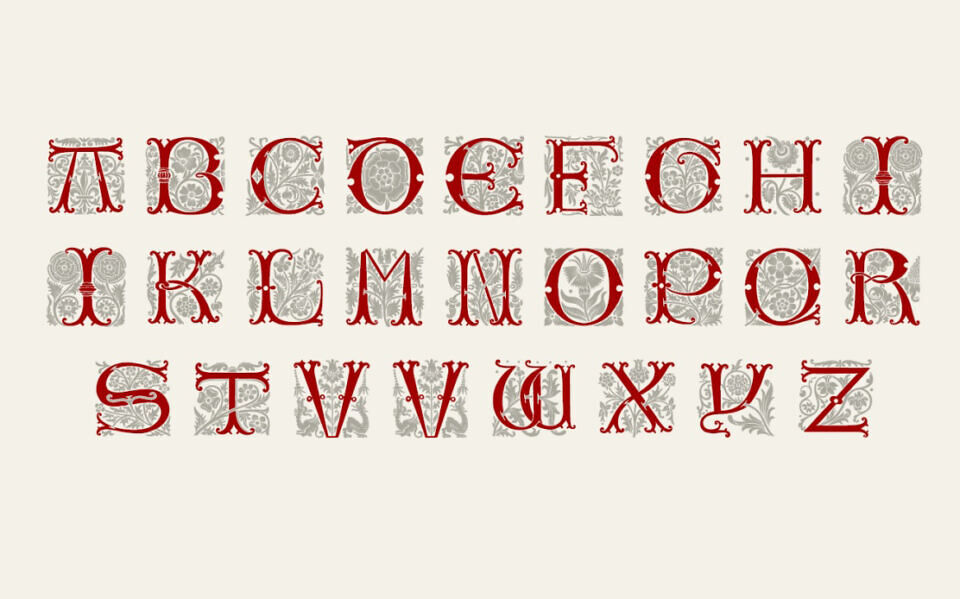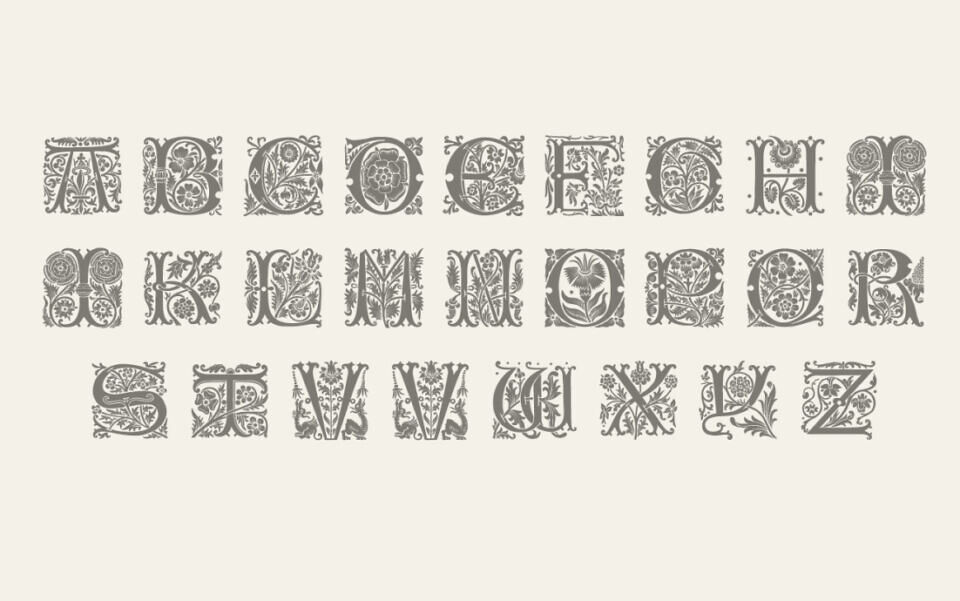
Capo Rose is a decorative OFL font inspired by 15th-century Venetian incunabula initials, as featured in Paleografia Artistica di Montecassino.
Designed by Michele Casanova, it offers uppercase letters (A–V, X) with intricate, ornate details, ideal for headings or decorative text. Capo Rose pairs elegantly with fonts like Vermiglione, evoking a historical, artistic aesthetic.